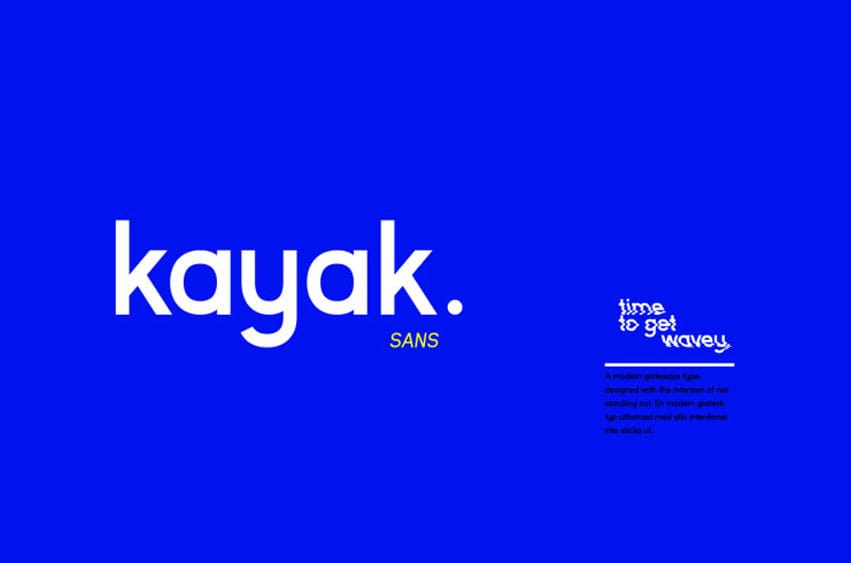
Kayak Sans Font is a clean grotesque font system that comes in six styles and three weights and heats, and with separate italic options only for the shades in the middle of the range that are common to all options, namely Bold, Regular, and Light.